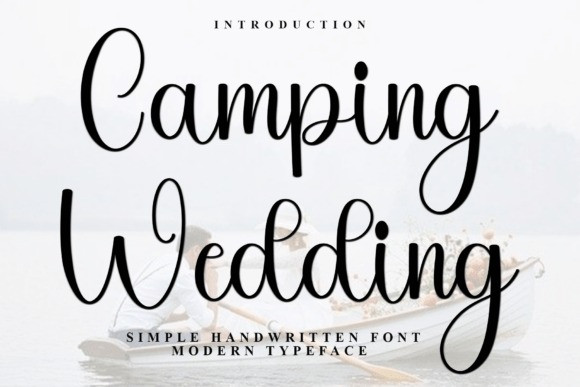
Camping Wedding Handwriting Font
Camping Wedding Handwriting Font is a beautiful and eye-catching font designed with a soft, unique touch. Its distinctive strokes give it a special character, making it meaningful and versatile for future use. With various characters, it’s perfect for design projects, crafts, and other creative works.